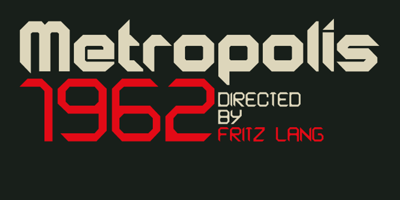
AstroNaut
AstroNaut font
AstroNaut Font Family was designed by Jonathan Hill and published by The Northern Block. AstroNaut contains 8 styles and family package options. AstroNaut is an 8 font family consisting of 4 weights with italics. It’s angular construction takes influence from various science fiction films including: Blade Runner, Alien, Minority Report & 2001: A Space Odyssey.